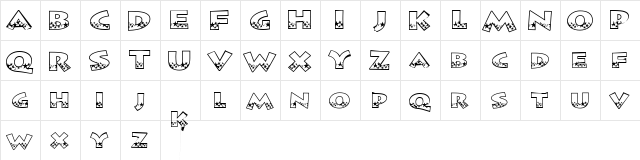
5 Starbound Outline DNA Regular
Design Context for 5 Starbound Outline DNA Typeface
5 Starbound Outline DNA brings ornamental detail and strong personality to headlines and identities, where visual impact matters more than quiet functionality.
Font Pairing: Pair with a clean neutral sans-serif for body copy to let 5 Starbound Outline DNA's character lead without overwhelming the composition.
Pro Tip: Treat 5 Starbound Outline DNA as the centrepiece of your typographic hierarchy. One strong heading set in a decorative face can carry an entire layout.